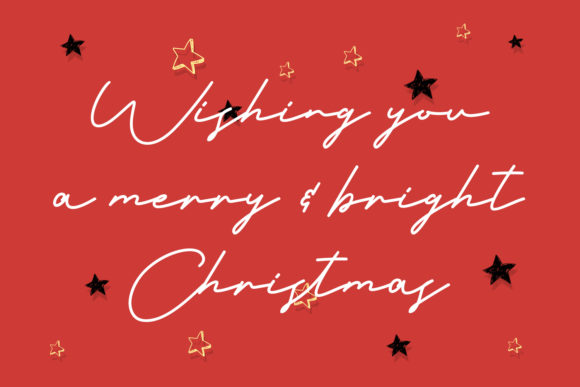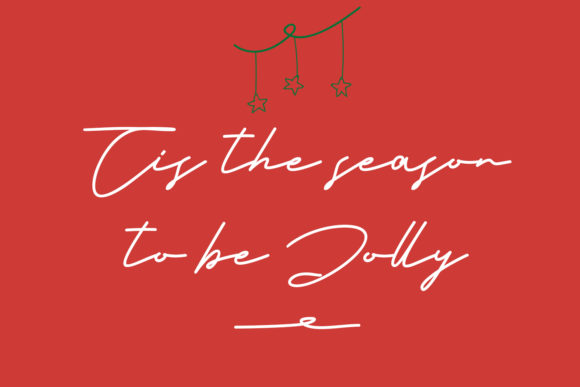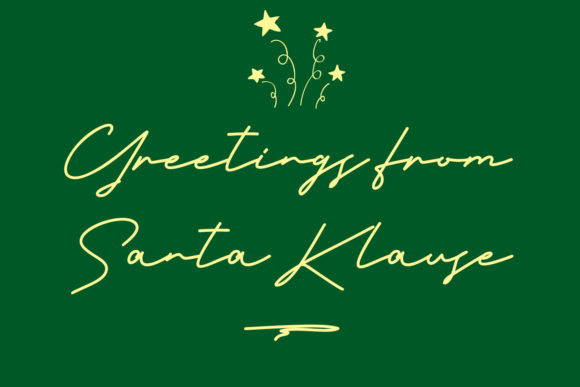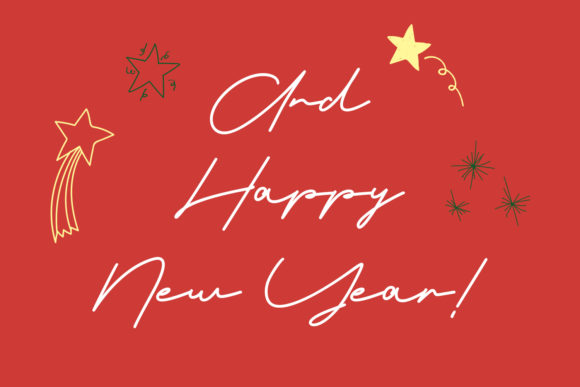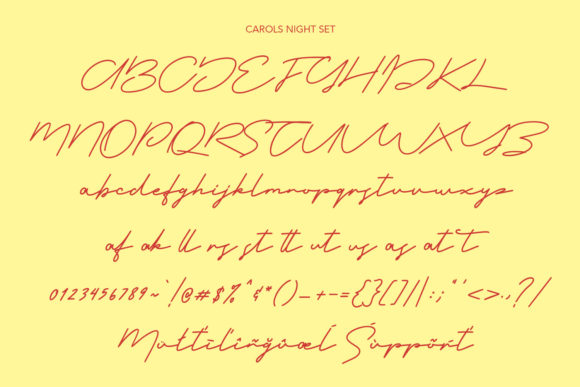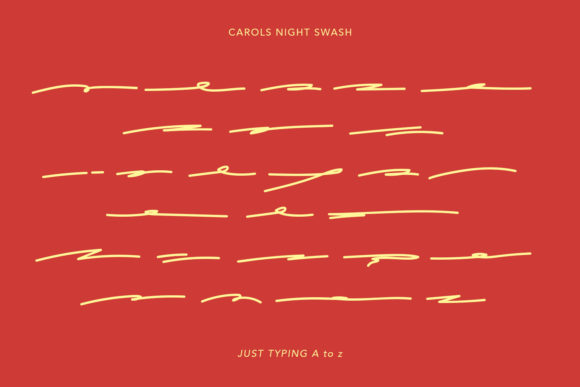
Introducing Carols Night Font: The Ultimate Christmas-Themed Handwritten Font
Are you looking for a font that can add a touch of magic to your holiday designs? Look no further than Carols Night Font, a beautiful Christmas-themed handwritten font that is sure to make your designs stand out. With its unique and versatile design, Carols Night Font is the perfect choice for designers and crafters who want to give their projects an authentic handwritten look and feel.
What Makes Carols Night Font So Special?
Carols Night Font is a carefully crafted font that is designed to evoke the spirit of the holiday season. Its handwritten design gives it a warm and personal touch, making it perfect for use in a variety of design projects, from holiday cards and invitations to social media graphics and more. But what really sets Carols Night Font apart is its beautiful set of swashes, which add an extra layer of elegance and sophistication to your designs.
The Benefits of Using Carols Night Font
There are many benefits to using Carols Night Font in your designs. Here are just a few:
- Unique and Versatile Design: Carols Night Font has a unique and versatile design that makes it perfect for use in a wide range of design projects. Whether you’re creating holiday cards, social media graphics, or blog posts, Carols Night Font is sure to add a touch of magic to your designs.
- Authentic Handwritten Look and Feel: Carols Night Font has an authentic handwritten look and feel that is sure to make your designs stand out. Its carefully crafted design gives it a warm and personal touch that is perfect for holiday designs.
Design Ideas Using Carols Night Font
Carols Night Font is a versatile font that can be used in a wide range of design projects. Here are a few ideas to get you started:
- Holiday Cards and Invitations: Carols Night Font is perfect for use in holiday cards and invitations. Its elegant design and beautiful swashes make it a great choice for formal and informal holiday designs.
- Social Media Graphics: Carols Night Font can also be used to create social media graphics, including Facebook posts, Twitter headers, and Instagram stories. Its unique design is sure to make your social media graphics stand out.
- Blog Posts and Articles: If you’re writing a holiday-themed blog post or article, Carols Night Font is a great choice. Its elegant design and readable style make it perfect for use in body text and headings.
- Signs and Banners: Carols Night Font can also be used to create signs and banners, including holiday-themed signs and banners for businesses and organizations.
Carols Night Font is a beautiful Christmas-themed handwritten font that is sure to add a touch of magic to your holiday designs. With its unique and versatile design, beautiful swashes, and easy-to-use installation process, Carols Night Font is the perfect choice for designers and crafters who want to give their projects an authentic handwritten look and feel. Whether you’re creating holiday cards, social media graphics, or blog posts, Carols Night Font is a great choice.